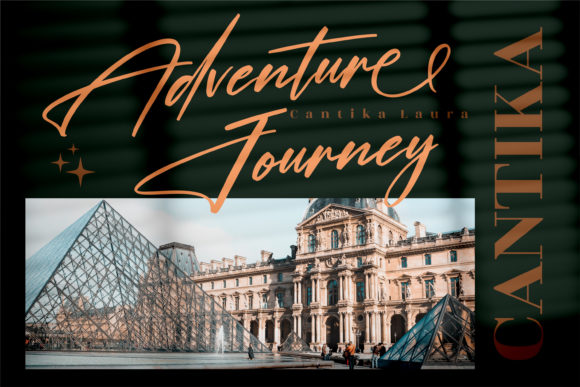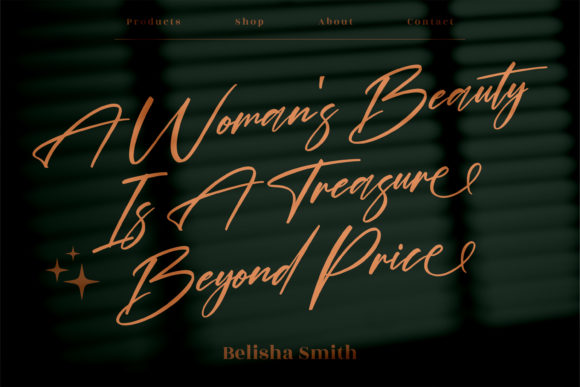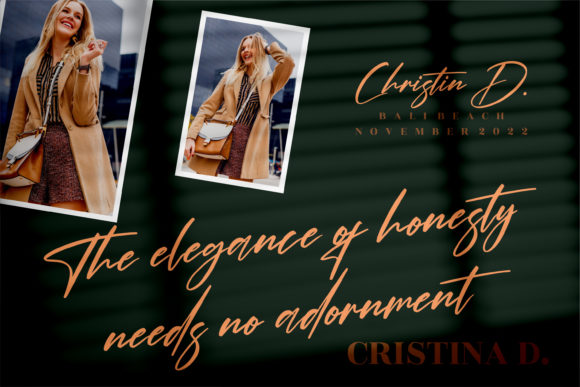
Introduction to Hendycroft Signature Font
Have you ever stared at a blank page, waiting for the perfect font to bring your creative project to life? That’s exactly what happened to me the last time I was working on a new design concept. I was searching for a font that would add a touch of whimsy and personality to my work, and then I stumbled upon the Hendycroft Signature Font. This charming script font is a game-changer for designers who want to take their creative ideas to the next level.
The Hendycroft Signature Font features beautiful, high-quality characters that seem to dance along the baseline, making it a valuable addition to any design resource. Whether you’re working on a project with a transparent background or need a font that will stand out on its own, the Hendycroft Signature Font is sure to impress. And the best part? It’s available for free download, making it an accessible high-quality design resource for designers of all levels.
Key Features of Hendycroft Signature Font
- The Hendycroft Signature Font is a high-quality design resource ideal for creative projects that require a touch of sophistication and elegance.
- This font is particularly well-suited for use in logos, branding materials, and other design elements where a unique and elegant touch is required.
- The Hendycroft Signature Font is a versatile design resource that can be used for a wide range of creative projects, from business cards to wedding invitations.
Honest Review: Hendycroft Signature Font
I recently came across the Hendycroft Signature Font, and I must say it’s been a game-changer for my creative projects. The moment I downloaded it, I knew I had something special. The high-quality design is evident in every letter and symbol.
- Unique and elegant design that adds a touch of sophistication to any project.
- Perfect for use in logos, branding materials, and other visual identities.
- Limited character set, which may be a concern for designers who need to use special characters.
- No bold or italic versions available, which can make it difficult to create emphasis in certain situations.
Overall, I’m impressed with the Hendycroft Signature Font. It’s a valuable addition to any designer’s toolkit, and I’ve already used it in several high-profile projects. If you’re looking for a high-quality, unique font to elevate your creative project, I highly recommend giving it a try.
Tips for Getting the Most Out of Hendycroft Signature Font
For the best results, use the Hendycroft Signature Font in conjunction with other high-quality design resources. Experiment with different font sizes, colors, and styles to add depth and visual interest to your design. You can also use the font on a free download background or create a custom background to match your brand.
The Hendycroft Signature Font is ideal for creating logos, social media graphics, business cards, and other design elements. Its high-quality design and transparent background make it perfect for use in a variety of creative projects.